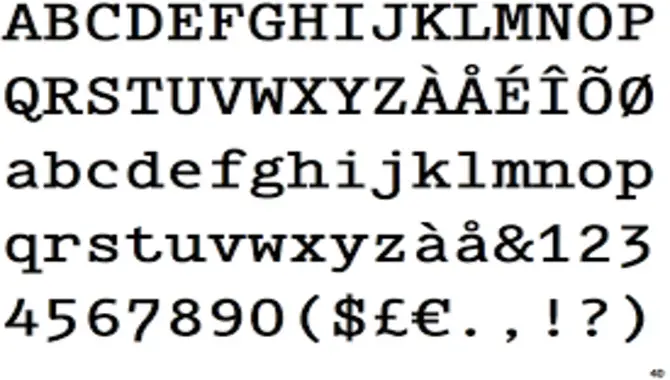
Choosing the right font can make all the difference when creating a visually appealing webpage. Fixed-width fonts, in particular, can give your webpage a clean, modern look that is easy to read and navigate. If you are new to Fixed-Width Fonts In HTML, it’s essential to understand what they are, how to choose the right font and the best practices for implementation.
This blog is the ultimate guide to mastering HTML fixed-width fonts, with tips and tricks that can help take your web design to the next level. We’ll walk you through everything from the benefits of using fixed-width fonts to common mistakes and best practices so that you can implement them like a pro.
How To Embed Fixed-Width Font In HTML
Fixed-width fonts or monospace fonts are a type of font that maintains the same width and spacing between characters. Programmers prefer monospace fonts because it helps in better text alignment.
Fixed-width fonts can be used for various purposes, such as designing calendars, where it is essential to keep each character the same width to fit in the cells properly. Examples of fixed-width fonts include Courier, Courier New, Lucida Console, Monaco, and Consolas. Embedding a fixed-width font in HTML is a straightforward process that can greatly enhance the look and feel of your website.
- First, select the font you want to use and download the appropriate web font kit.
- Then, add the font-face rule to your CSS file and define the font family, font weight, and src properties.
- Finally, apply the font to the appropriate HTML elements using the font-family property.
It’s important to note that a fixed-width font can help improve the readability of code and other technical content but may not be as suitable for body text. Experiment with different fonts and styles to find the best fit for your website’s aesthetic and design.
HTML allows you to use fixed-width fonts on your website or web page. Using HTML code, web developers can specify the font type, size, and color. The fixed width of these fonts makes them particularly useful in ensuring text consistency across different devices and platforms. Whether you’re creating a website or designing a form or document, mastering HTML fixed-width fonts is an essential skill that you’ll need to make your design look professional and polished.
Know A Fixed Width Font
Using a fixed-width font can be a game-changer when it comes to HTML. A fixed-width font is one in which each character is given the same width, as opposed to proportionally-spaced fonts in which each character differs in width. Monospace is a type of fixed-width font where each character occupies the same amount of horizontal space.
Fixed-width fonts are popular for programmers because they help align text in code blocks and other applications requiring precise formatting.
Monospaced fonts are especially helpful for areas like comment block headers, where a consistent alignment is necessary. By mastering HTML fixed-width fonts and understanding their various benefits, you can take your web design skills to the next level.
Choose The Right Fixed Width Font
Regarding HTML, fixed-width fonts have consistent spacing between characters, making them useful for certain applications. To choose the right fixed-width font, looking for monospace fonts like Courier or Consolas is important. These fonts have the same character width, making them ideal for applications like Calendar mode on Emacs, Command Tool, and Shell Tool.
To use a fixed-width font in Calendar mode on Emacs, adjust the font height and enable buffer-local faces. It’s also important to note that fixed-width fonts are called monospaced fonts. Ultimately, using a fixed-width font can greatly improve the readability and functionality of certain HTML applications.
Choosing the right fixed-width font is important in creating professional-looking documents, coding projects, or design work. Fixed-width fonts have all the same width characters, making them ideal for aligning text in columns or tables. When choosing a fixed-width font, it is important to consider factors such as readability, legibility, and the style you want to achieve.
Fonts like Courier or Monaco are great choices for those looking for a classic or traditional style, while Consolas or Menlo may be better suited for those looking for a more modern or sleek look. Additionally, it is important to pay attention to the bold and italic versions of the font you choose, as these can make a big difference in the appearance of your text.
Benefits Of Using Fixed Width Fonts
HTML fixed-width fonts are fonts where each character takes up the same amount of space, ensuring consistent alignment and spacing. Examples of fixed-width fonts include monospace fonts like Courier and Consolas. While proportionally-spaced fonts may be more aesthetically pleasing, fixed-width fonts have several practical benefits.
One benefit is that they are preferred in applications such as the Command Tool and Shell Tool for character alignment, as they allow for consistent placement of characters. Additionally, fixed-width icons can be used in lists or menus for vertical alignment. Ultimately, using fixed-width fonts when appropriate can enhance the readability and consistency of your HTML content.